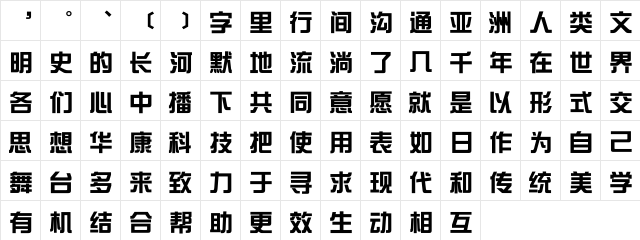
DFZongYiBold1B-GB Regular Font Preview
DFZongYiBold1B-GB Regular
Design Context for DFZongYiBold1B-GB Typeface
DFZongYiBold1B-GB is a composed and adaptable typeface that performs quietly and consistently across a wide range of design contexts. Its bold stroke weight gives it real presence on the page.